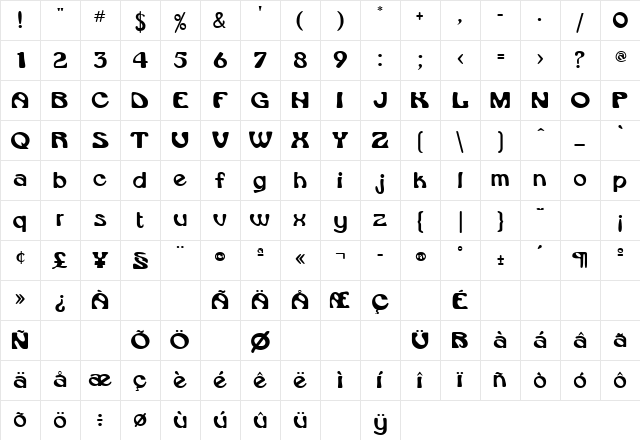
VroomSSK Regular Free Font
VroomSSK Regular
VroomSSK Family
Design Context for VroomSSK
VroomSSK is a composed and adaptable typeface that performs quietly and consistently across a wide range of design contexts.